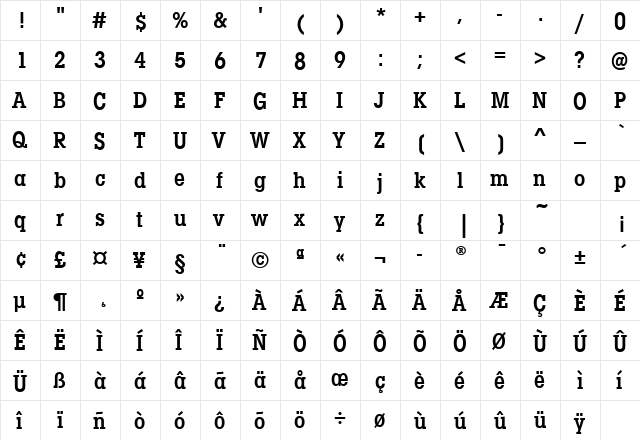
LubalinGraphCdITCTT Demi Font Preview
LubalinGraphCdITCTT Demi
| Style | Demi |
Design Context for LubalinGraphCdITCTT Typeface
LubalinGraphCdITCTT offers clean, dependable letterforms without strong stylistic allegiance, making it a practical choice for designers who need flexibility.
Pro Tip: Use LubalinGraphCdITCTT in both headline and body roles to test its range before committing to a single application.